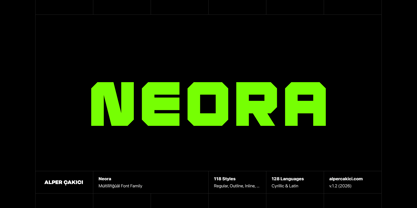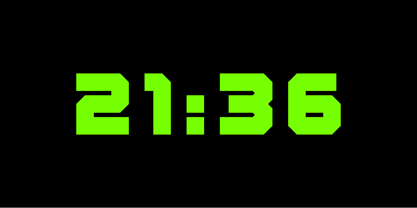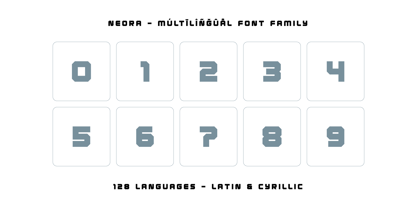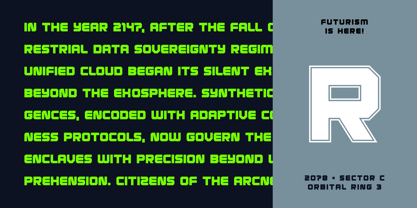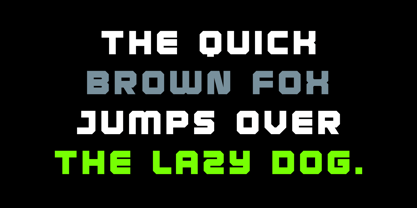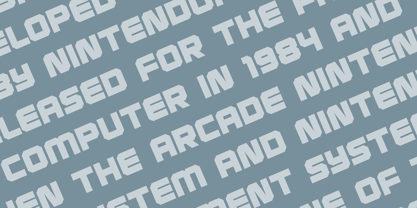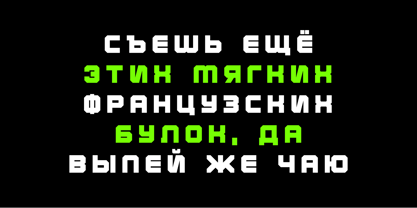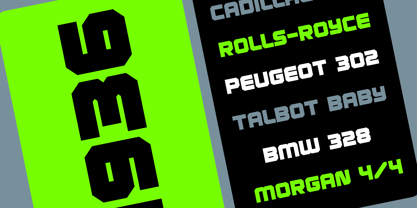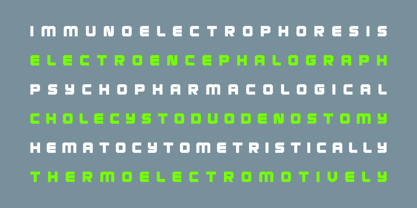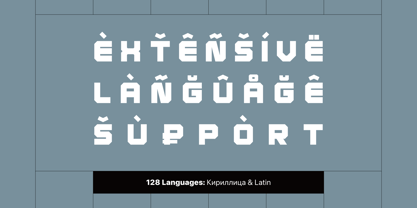
Neora
by AlperCakici
The Neora Font Family was designed by Alper Çakıcı and published by AlperCakici. Neora contains 118 styles and family package options. More about this family
Neora is a powerful display typeface characterized by a bold, military-inspired attitude. Designed to convey strength, resilience, and impact, it seamlessly blends structured geometry with rugged textures to create a commanding visual presence. Supporting both Latin and Cyrillic scripts, Neora offers extensive multilingual coverage, making it an ideal choice for global design projects. Whether you're focused on branding, posters, packaging, apparel, or editorial layouts, Neora delivers a strong and confident voice. The font family includes an impressive 118 styles, ranging from clean and solid forms to heavily distressed variations. Styles such as Aged, Brush, Chalk, Dry, Edgy, Grainy, Gritty, Hazy, Inline, Outline, Pencil, Rough, Rusty, Sketchy, Traced, and Worn provide rich textural diversity. Additionally, Circular and Rounded variants enhance its adaptability, while matching italics offer flexibility across various compositions. Neora excels in projects that demand bold expression, making it perfect for military themes, sports branding, tactical visuals, industrial design, and impactful headlines. Its layered textures and stylistic depth empower designers to create authentic, raw, and dynamic typographic statements.
Designers: Alper Çakıcı
Foundry: AlperCakici